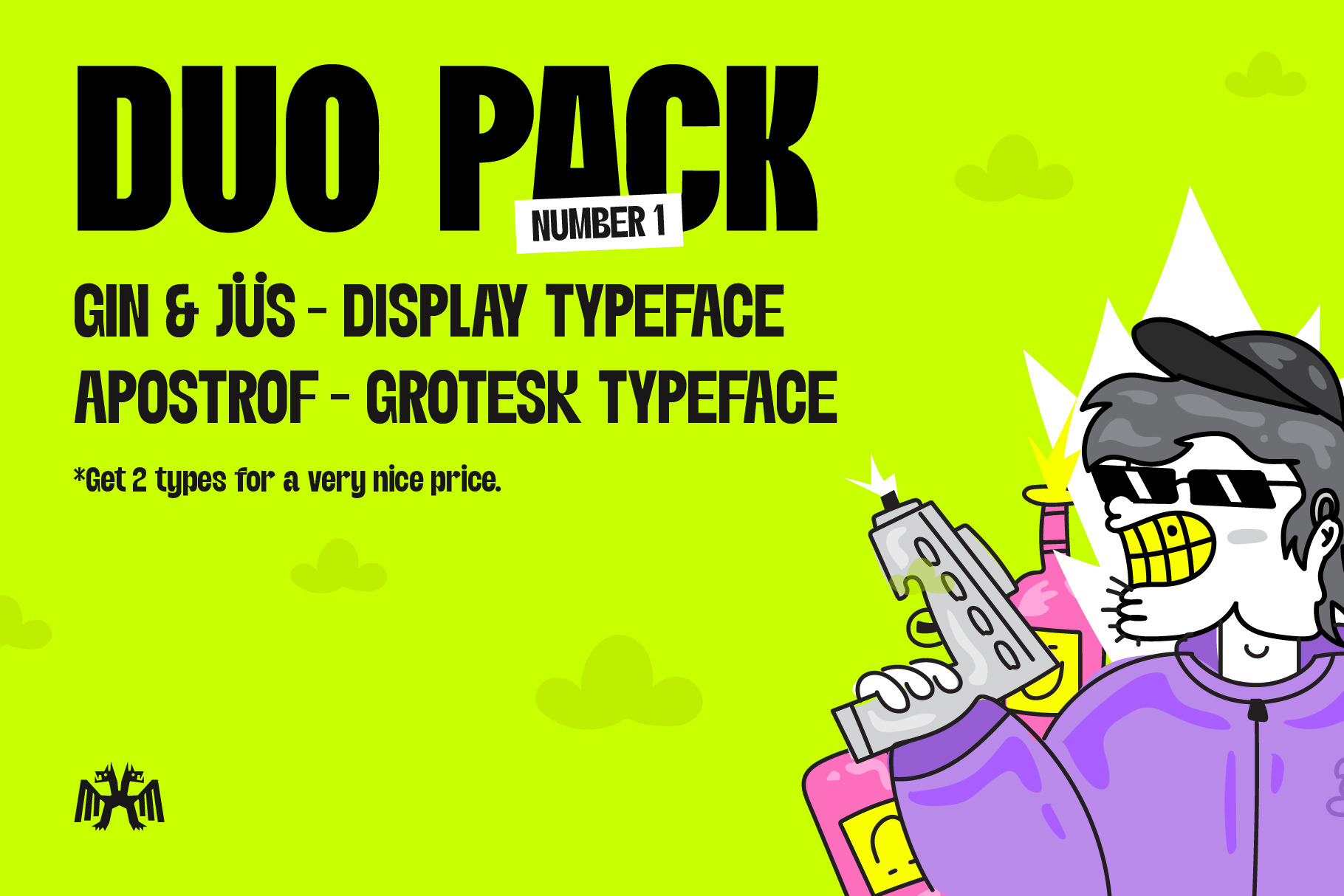
Gin & Jüs + Apostrof (Duo Font Pack)
As promised, we've now started releasing the Duo Packs! 2 random types mixed together and made into a small bundle. Get the pack with a nice price. This product is perfect for those who want 2 funky types instead of 1 and want to save a couple bucks while at it.
In the pack: Gin & Jüs Display Typeface (Regular, Italic) + Apostrof Grotesk (Regular, Italic).